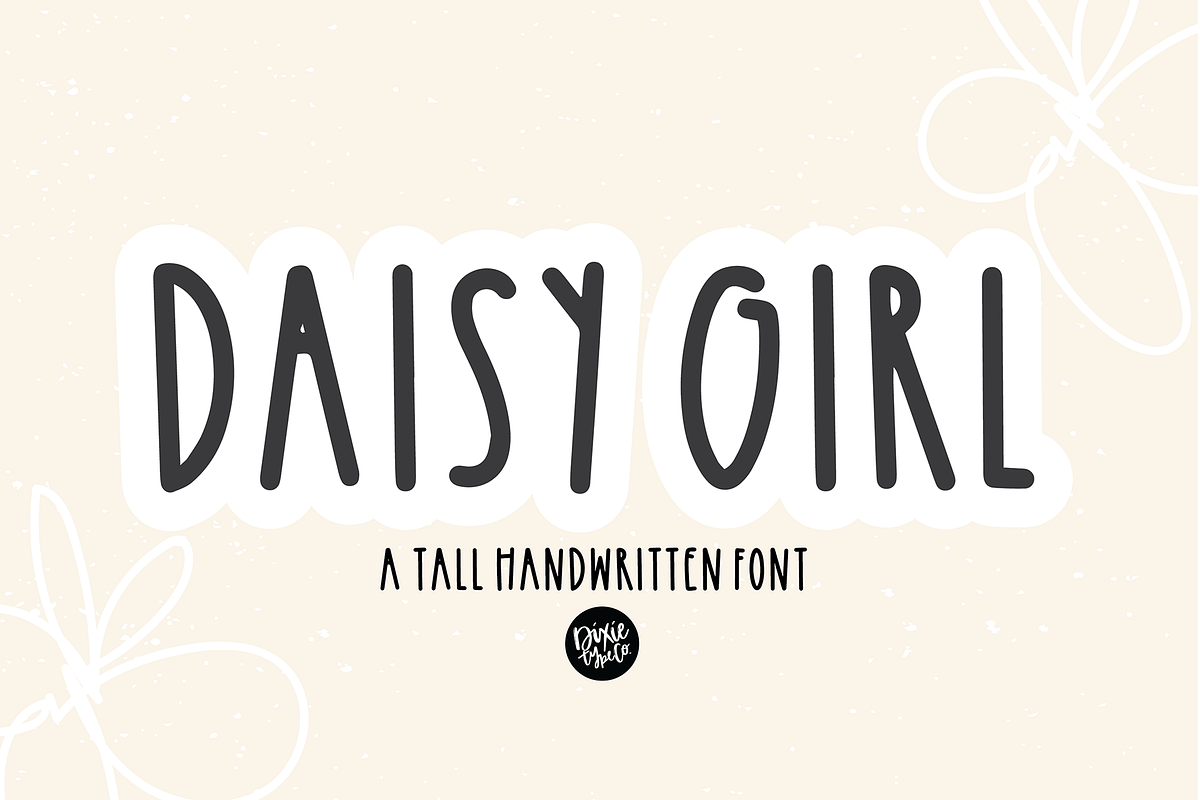
DAISY GIRL a Tall Handwritten Font Free Download
DAISY GIRL – A Tall Handwritten Font Free Download is a sweet and stylish typeface with an extra-tall, slender design that adds charm and personality to your creative projects. With its playful handwritten style and elegant vertical stretch, this font is perfect for greeting cards, planner pages, quotes, logos, and lifestyle branding.
DAISY GIRL – A Tall Handwritten Font Free Download stands out with its cheerful energy and modern simplicity. It’s ideal for designs that need a lighthearted yet refined feel, especially when you want to add a personal, hand-crafted touch.